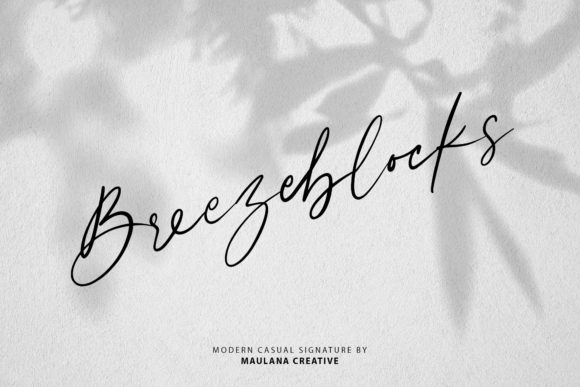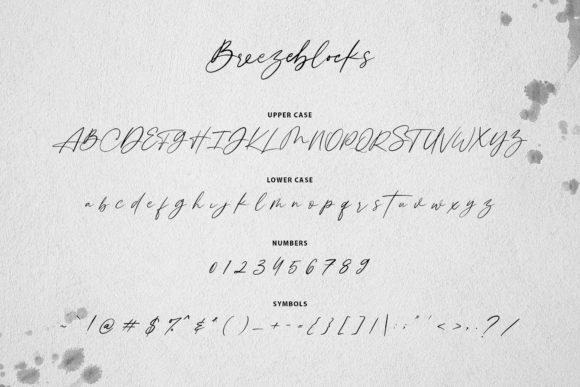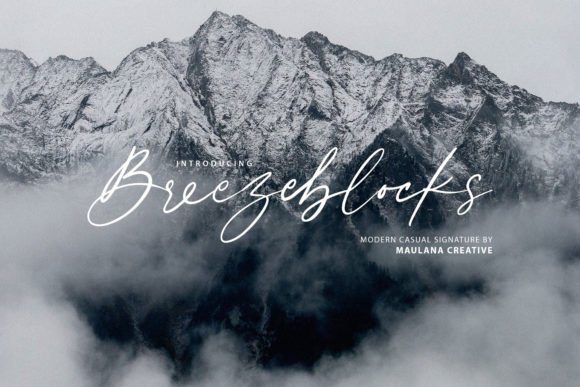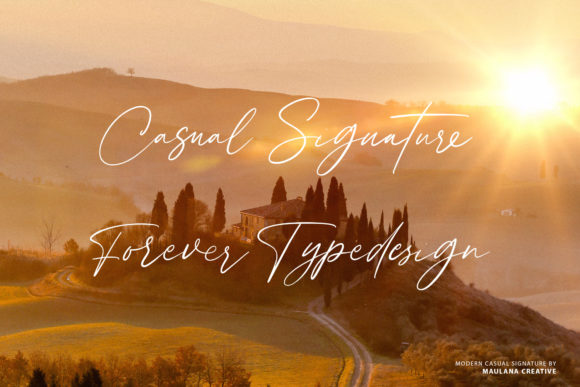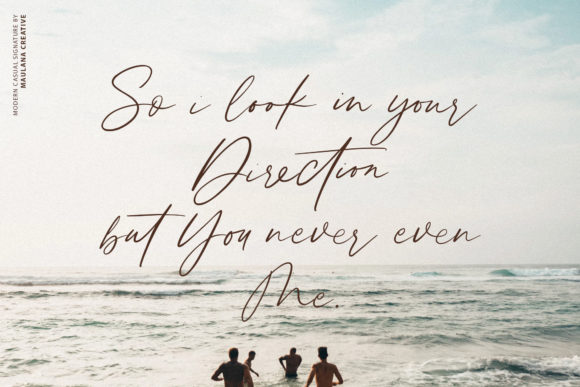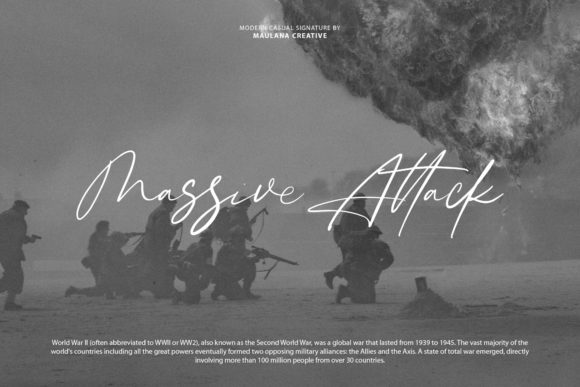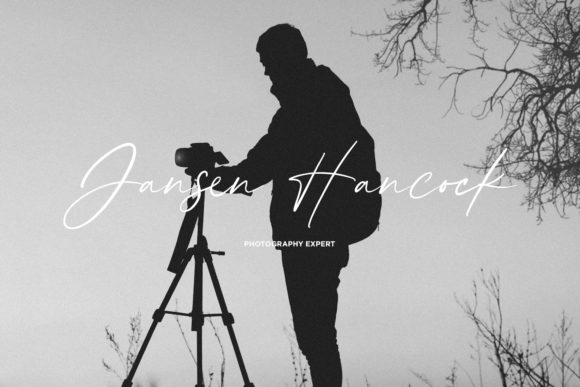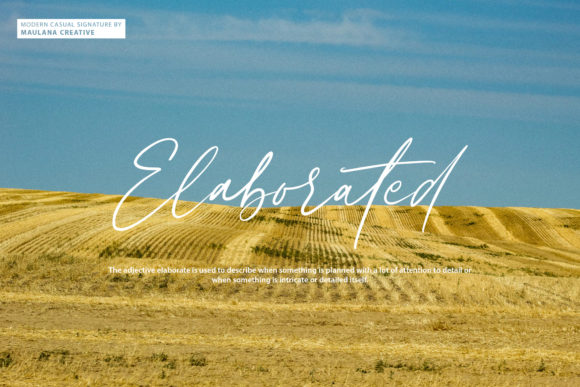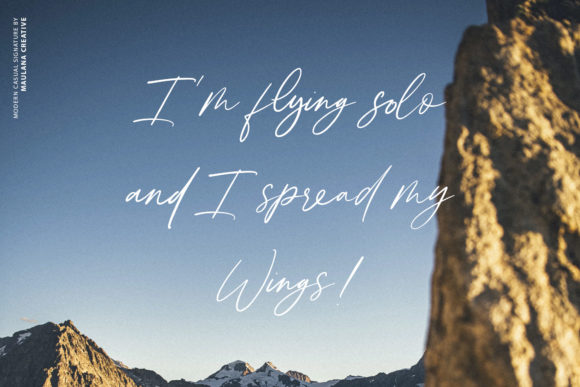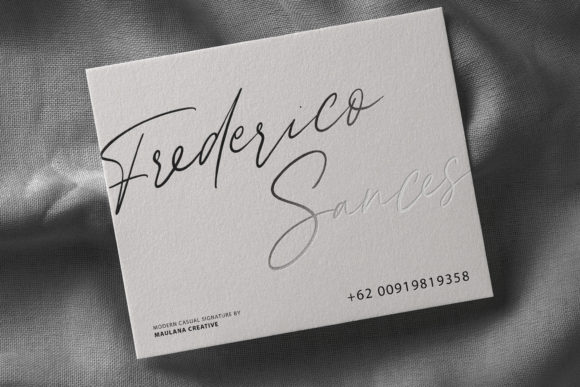
Breezeblocks Font
About Breezeblocks Font
Breezeblocks is a modern, charming and authentic script font with a contemporary style. Get inspired by its unique charm!